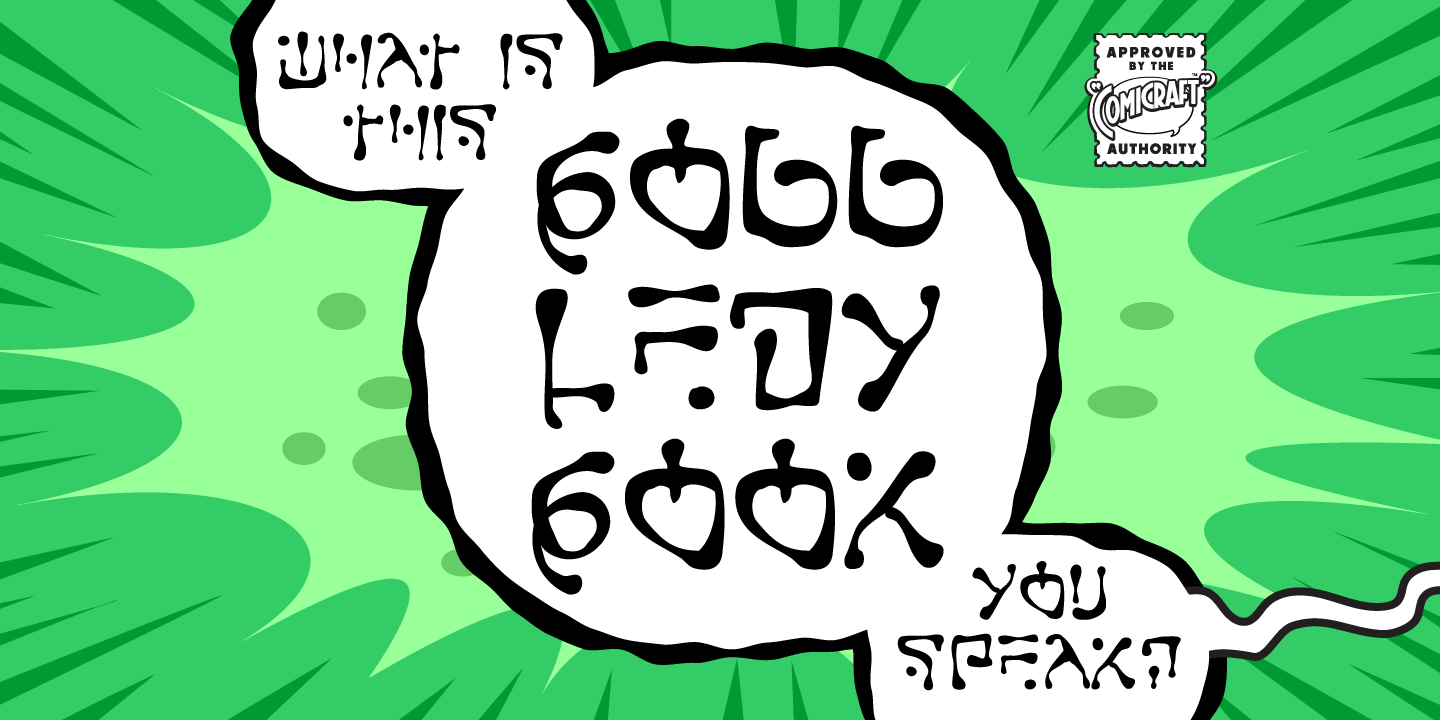
Gobbledygook Font is ideal for satirical publications, humorous poster designs, parody marketing campaigns, comedy club branding, absurdist theater promotions, playful children's books, nonsense poetry layouts, whimsical greeting cards, silly social media graphics, and entertainingly chaotic applications. This delightfully nonsensical display typeface brings comedic confusion and playful absurdity to humor-focused design applications.
What makes Gobbledygook Font so exciting is its extraordinary ability to transform ordinary text into hilariously incomprehensible visual comedy through letterforms that seem designed by a committee of caffeinated squirrels with opposing opinions about what constitutes readable typography. The font features wonderfully chaotic characters with deliberately confusing proportions and absurdly inconsistent details that embody the beautiful madness and delightful confusion that define the best examples of nonsensical humor and playful linguistic rebellion. Its distinctive characteristics include gloriously inconsistent stroke patterns, randomly varying baselines, and charmingly chaotic spacing that mirror the joyful confusion and delightful absurdity that characterize the most entertaining examples of verbal nonsense and comedic wordplay. The font's connection to humor culture and proven appeal among comedy-loving audiences make Gobbledygook Font perfect for entertainers and brands seeking to communicate playfulness, humor, and the kind of delightful confusion that makes people laugh and brightens their day.
The Gobbledygook Font family includes multiple chaotic variations: Regular, Bold, Extra Silly, and Completely Bonkers versions with nonsensical character sets. The comprehensive character collection encompasses complete Latin alphabet support with absurd alternates, ridiculous numerals, silly punctuation marks, nonsense symbols, and hilariously confusing decorative elements that enhance comedic messaging. Professional features include contextual alternates that maximize comedic confusion, chaotic spacing that creates delightful disorder, silly character construction that ensures maximum humor appeal, and absurd details that add authentic nonsense atmosphere without completely destroying readability across different comedy applications and humorous promotional materials.
Whether you're creating comedy entertainment materials, satirical communications, or playfully absurd projects that celebrate the joy of linguistic silliness and comedic confusion, Gobbledygook Font Free Download provides the delightfully chaotic typography that transforms serious text into sources of genuine laughter and comedic entertainment. Its exceptional silly character makes it perfect for comedy venues, satirical publications, and entertainment brands where creating laughter and memorable confusion are essential for audience engagement and comedic success, while its chaotic construction ensures professional presentation that maintains just enough readability alongside maximum comedic impact. The font's combination of deliberate confusion and contemporary functionality makes it invaluable for designers working with comedy brands, satirical projects, and any project seeking to communicate the joyful absurdity, playful confusion, and delightful nonsense that defines the most entertaining expressions of humor and the universal human need to laugh at the beautiful chaos of language and life in today's overly serious world.